20+ Magical Christmas Fonts for Gifts, Cards & Holiday Decor
I work in design, and the holidays are my favorite time to get creative — whether I’m crafting custom cards, printable decor, festive social posts, or gift tags. The right Christmas fonts instantly set the mood and bring a project to life.
1. Christmas Magic Handwritten Font
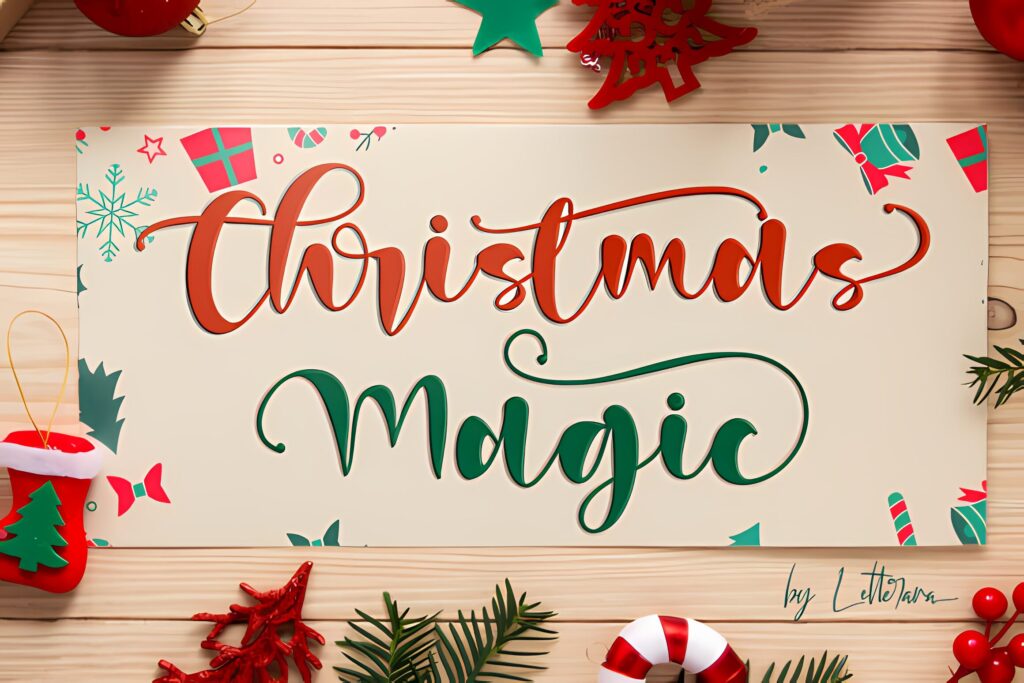
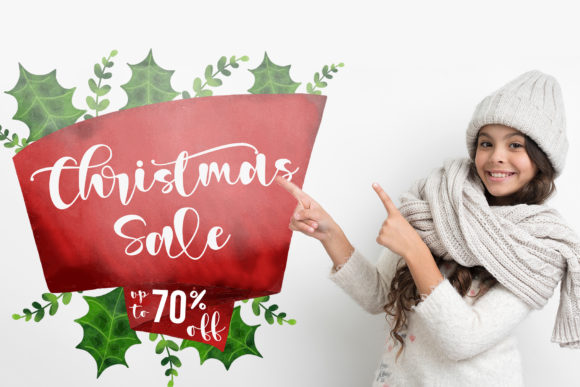
Christmas Magic feels like handwriting from a cozy holiday card — elegant, flowing, and surprisingly modern. I use its smooth lines and varied baseline for headings, gift tags, and premium cards. PUA‑encoded glyphs and swashes make alternates easy to access, letting me add flair without extra work. Great for classy, timeless holiday branding and print projects.
2. Christmas Bundle | Festive Holiday Font
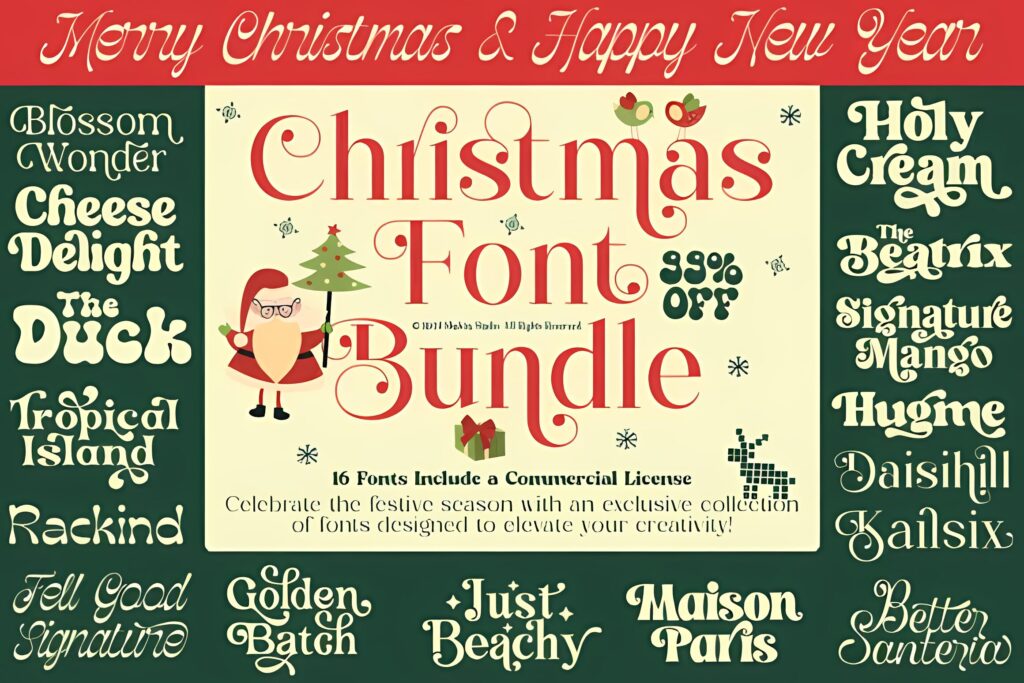
This bundle is my go‑to when I need a quick festive toolkit — a big mix of retro and tail‑accented Christmas fonts that play well together. I use them for logos, holiday branding, Cricut crafts, party invites, and seasonal merch. The variety saves time: one purchase covers cards, posters, tees, social posts and more. Ideal for busy designers needing versatile Christmas Fonts.
3. Amour Christmas Display Font
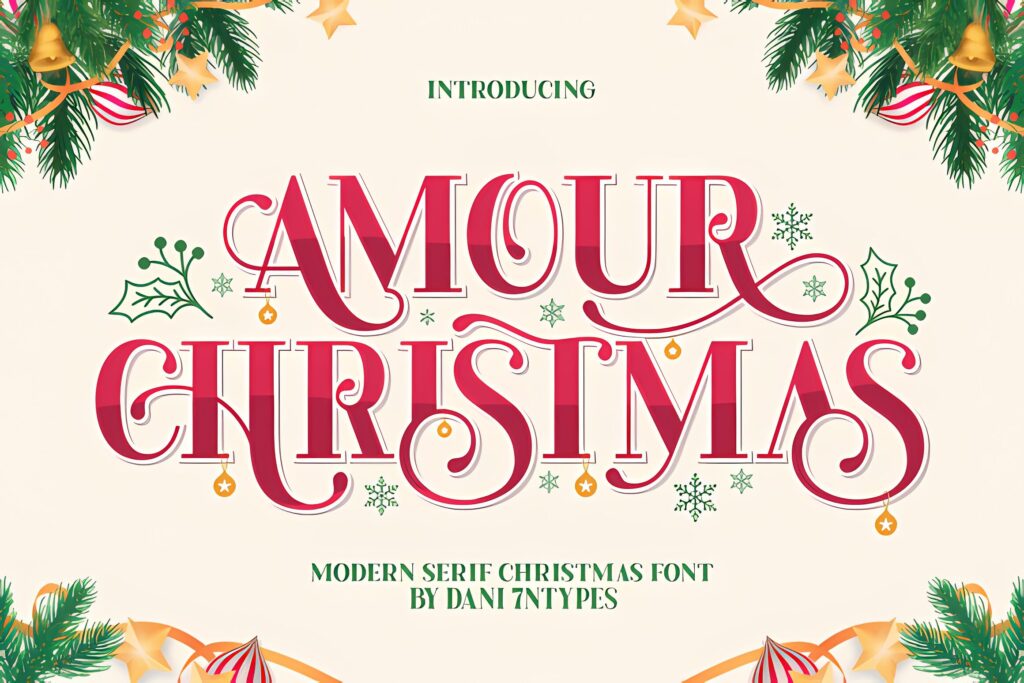
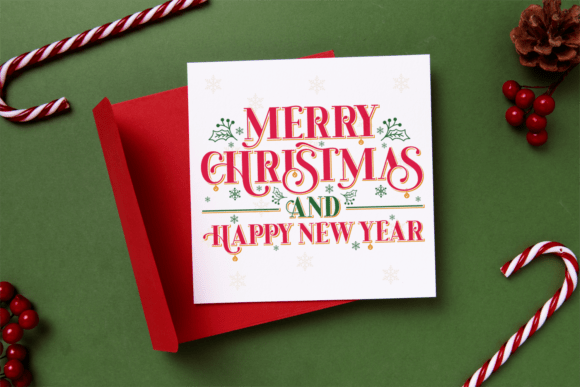
Amour Christmas is the go‑to I reach for when a project needs elegant holiday flair. Its serif base with whimsical swashes and ornaments makes cards, packaging, branding, and social posts feel warm and refined. PUA‑encoded alternates and swashes give me quick control over stylistic touches. A polished choice among Christmas Fonts for expressive, festive designs.
4. Christmas Monday Display Font
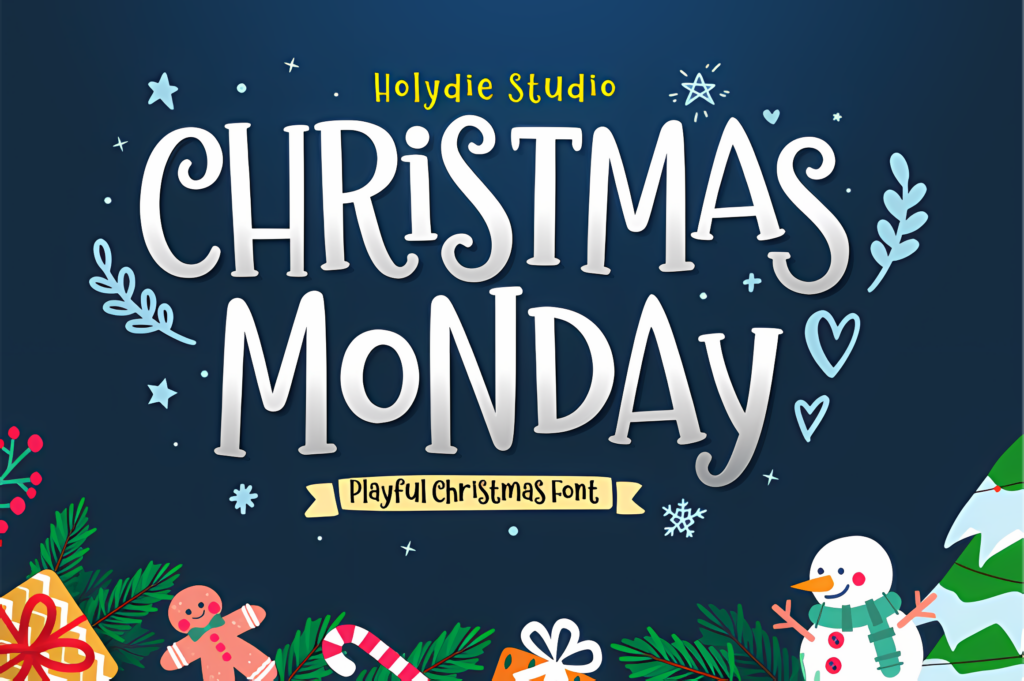
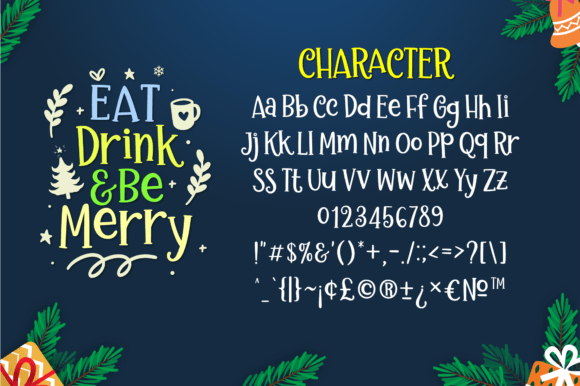
Christmas Monday is the playful font I grab when a design needs a hand‑written, cozy touch. Its delicate, quirky shapes add personality to gift tags, holiday cards, seasonal posters, and social posts. I love how authentic it feels—great for homemade vibes—and it’s versatile enough for both print and web. A warm, personal pick among Christmas Fonts for projects that need charm.
5. Chasing Christmas Serif Font
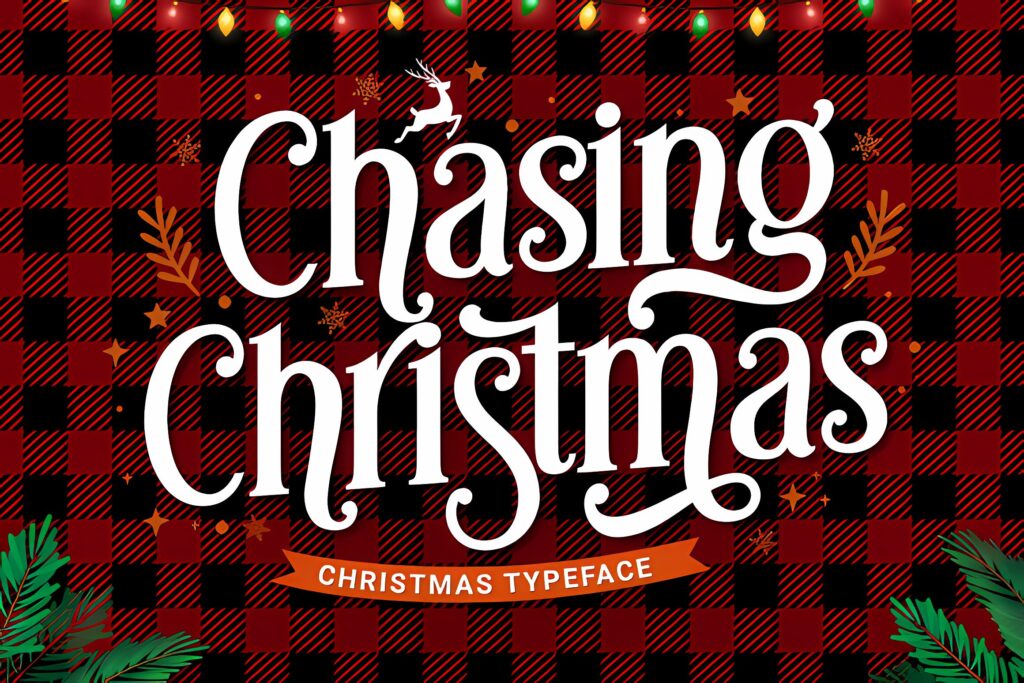
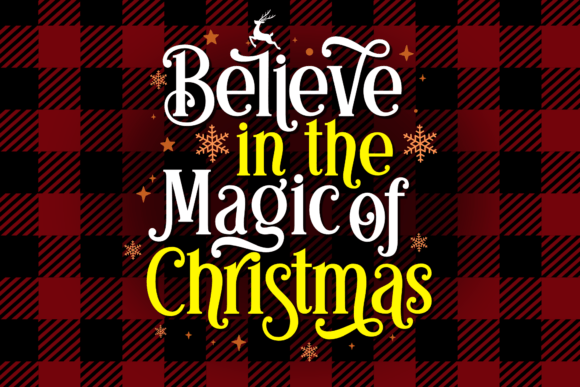
Chasing Christmas is the cheerful serif I pick when a design needs upbeat holiday energy. Its playful letterforms and decorative swashes work great for headers, gift tags, party invites, and seasonal packaging. Since it’s PUA‑encoded, I can quickly access alternates and glyphs to add extra personality without fuss. A lively, reliable choice among Christmas Fonts for festive branding and print.
6. Special Handwritten Christmas Font
Special Christmas is the duo-styled hand-lettered font I reach for when a design needs both charm and subtlety. Its two complementary styles let me mix headings and body text for cohesive cards, gift tags, labels, and social posts. PUA‑encoded glyphs and swashes make swapping alternates effortless. A versatile, polished pick among Christmas Fonts for layered, handcrafted holiday designs.
7. Christmas Colorful Set Font
The Christmas Colorful Set Font is my go‑to when I want projects to feel instantly joyful and colorful. I use the black version for Cricut cutouts, tags, and sweater stencils, and the color version for bold headers in Photoshop or Illustrator. Its playful shapes and bright personality lift cards, packaging, party invites, and holiday merch.
The color OTF/TTF works in specific apps (not Cricut), while the black glyph set is Cricut‑ready—handy for mixing print and craft workflows. A cheerful, versatile choice among Christmas Fonts. See the Ultimate Font Guide for detailed instructions on using this type of font.
8. Christmas Vibes Duo Display Font
Christmas Vibes Duo is the bold duo I reach for when a design needs strong, festive attitude. One style brings sharp, punchy display letters for posters, headers, and packaging; the cursive variant adds warm, consistent script for tags and cards. I mix them for striking contrast—easy wins for merch, social posts, and signage. A confident, versatile pick among Christmas Fonts that gives projects instant holiday energy.
9. Christmas Carol Display Font
Christmas Carol is the playful font I pull out for kid‑friendly and craft projects. Its decorative shapes work perfectly with Cricut, Procreate, gift tags, kids’ cards, mugs, tees, and social posts. I rely on it for clear, cheerful headings and fun printable pieces—easy to cut, easy to read, and full of holiday charm. A go‑to choice among Christmas Fonts when I need bright, crafty results.
10. Wondrous Christmas Serif Font